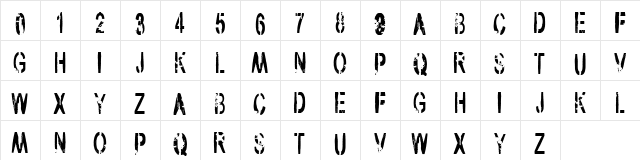
vtks army Regular
| Foundry | douglas vitkauskas |
| Designer | douglas vitkauskas |
Design Context for vtks army Typeface
vtks army draws on military and industrial lettering traditions, with forms that communicate strength and precision.
Designed for tactical branding, military-inspired apparel, action game UI, and utility-focused signage.
Pro Tip: Use vtks army at medium-to-large sizes where its utilitarian structure can be appreciated — the character detail gets lost at small sizes.